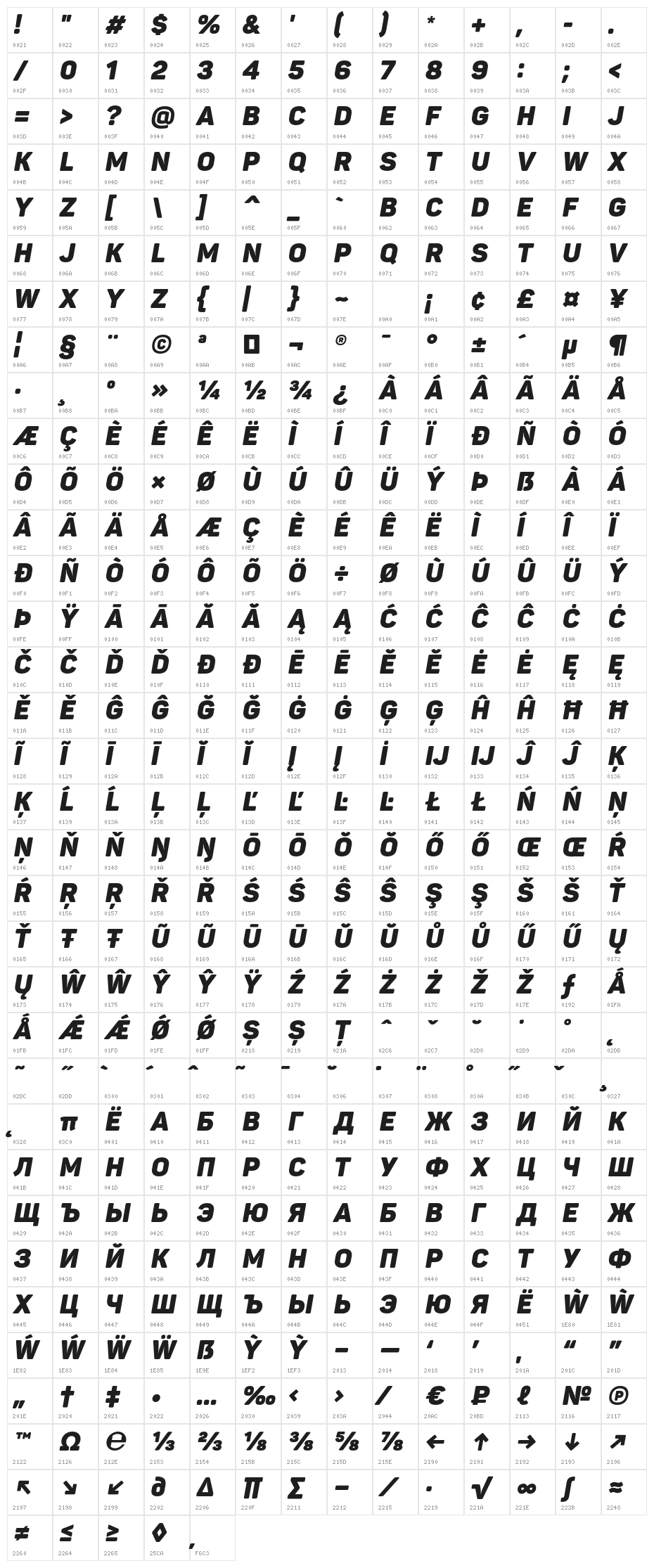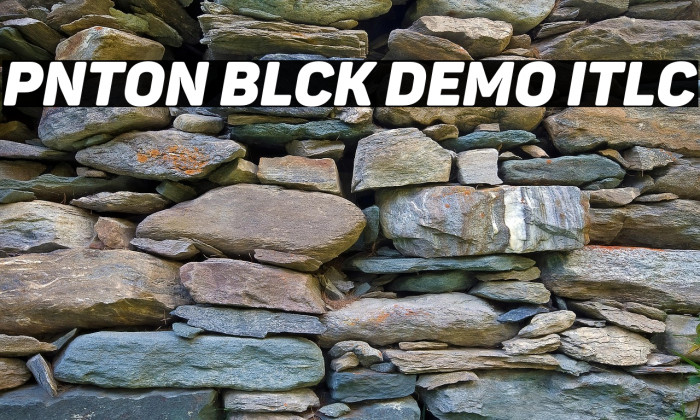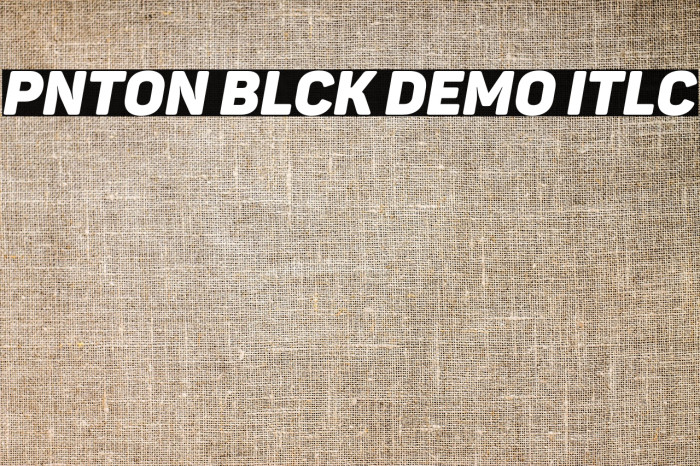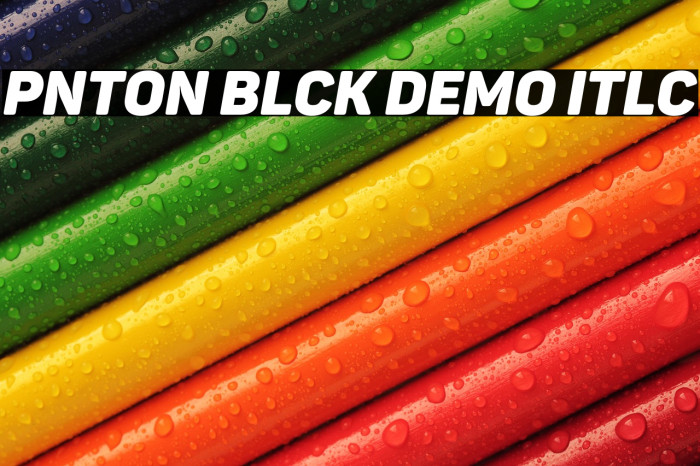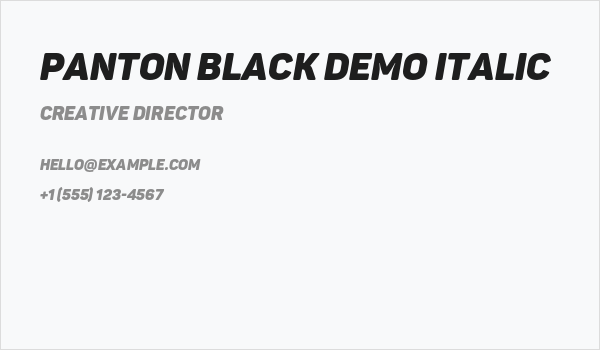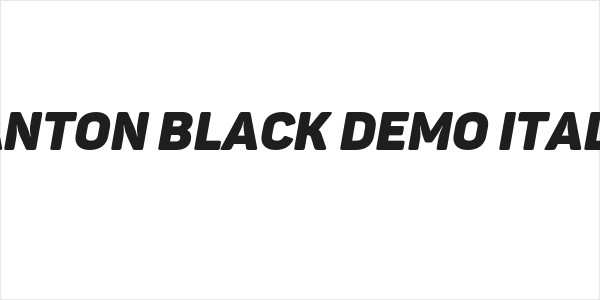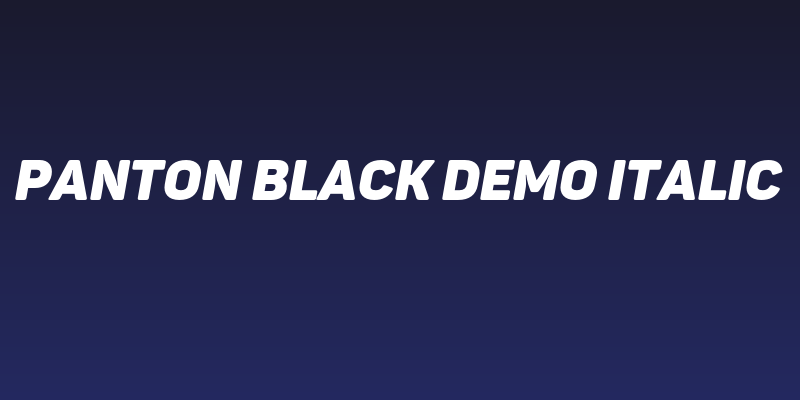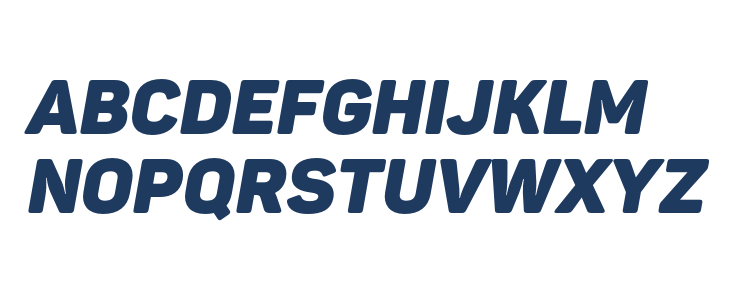
Panton Black Demo Italic Font
Panton Black Demo Italic Description
This font features a bold and dynamic style with a strong presence. The characters are italicized, giving them a forward-leaning appearance that suggests movement and energy. The strokes are thick and consistent, providing a uniform look across all characters. The design is clean and modern, with smooth curves and sharp edges that enhance readability. The numbers and special characters maintain the same boldness and style, ensuring a cohesive look throughout. This font is suitable for making a strong visual impact, ideal for headlines or branding where attention is key.
| Proposed Projects | Ideal for branding, advertising, headlines, and any project requiring a strong visual impact. |